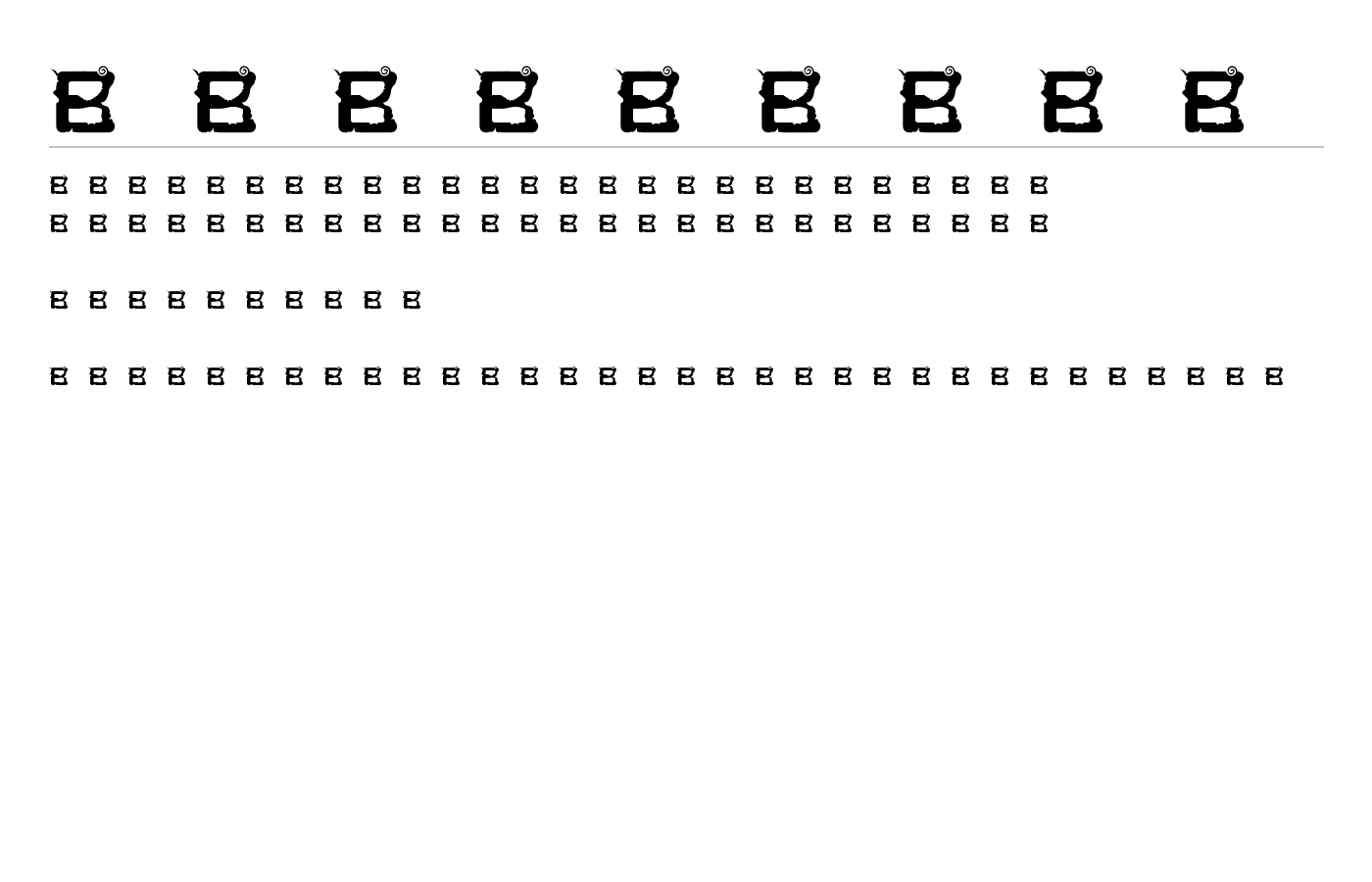
99%BadbOy is a bold and decorative slab serif font with a strong, vintage-inspired personality. Its thick, blocky letterforms feature thick slab serifs and intricate, playful details like curled strokes, making it ideal for eye-catching headlines, logos, and designs that need a touch of rugged charm and character. This font works well in creative projects that aim to convey a bold, confident, and slightly rebellious vibe.
99%BadbOy Font
About 99%BadbOy Font